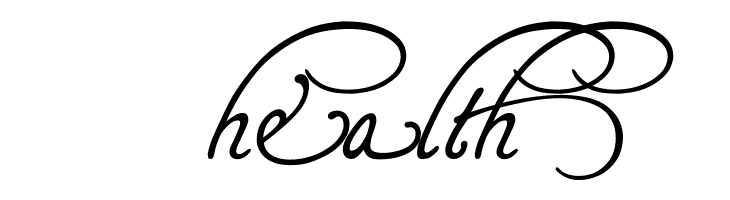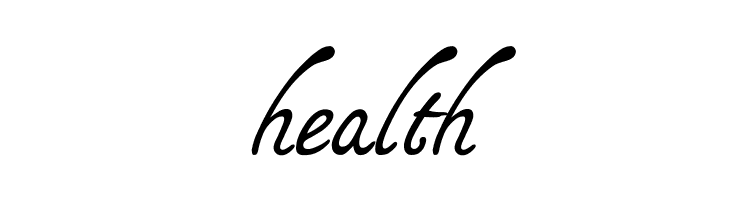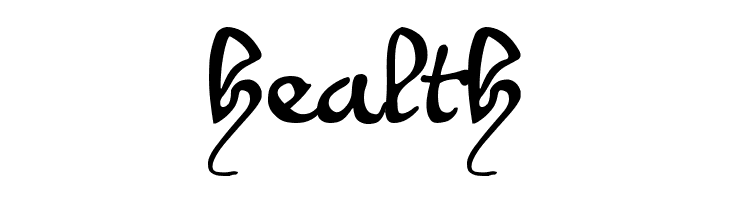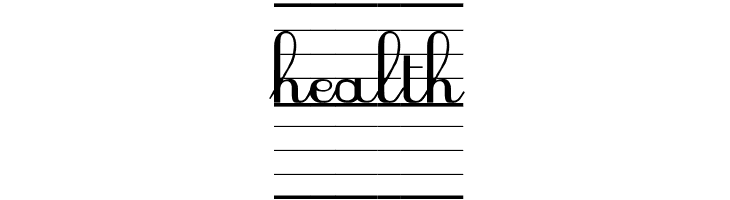
An elegant, flowing script font with a classic, handwritten style.
( Fonts by Jens R. Ziehn - www.filmhimmel.com )
A dramatic, angular font with a cursive-like, expressive style.
( Font by SnatchSoft )
A classic, elegant script font with flowing curves and intricate details.
( Fonts by www.pia-frauss.de )
An ornate and decorative script font with elaborate swirls and flourishes.
( Fonts by www.pia-frauss.de )
An elegant script font with intricate swirls and flourishes.
( Fonts by SDFonts - Ritzy )
A classic, calligraphic font with elegant, flowing strokes and artistic flourishes.
( Fonts by www.pia-frauss.de )
An ornate, medieval-inspired calligraphic font with elaborate curves and flourishes.
An elegant script font with flowing, cursive letterforms and classic calligraphic style.